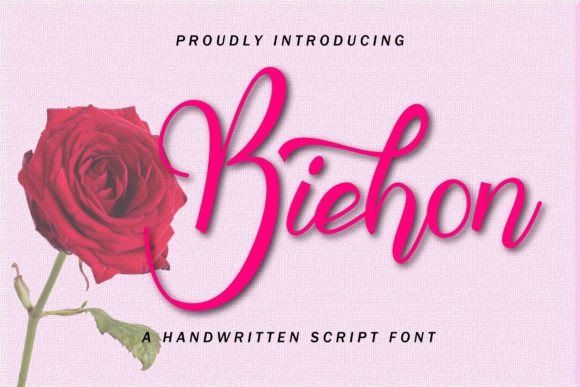
Introducing Biehon Font: The Epitome of Elegance and Sophistication for Your Creative Endeavors
Prepare to be mesmerized by Biehon Font, a magnificent script font that exudes charm, grace, and unparalleled style. This exquisite typeface, meticulously crafted by the talented Emily Studio, invites you to unleash your creativity and create captivating designs that will leave a lasting impression.
Biehon Font is the perfect choice for those seeking to make a statement with their words. Its graceful curves and delicate strokes evoke a sense of effortless elegance, making it an ideal font for invitations, wedding announcements, branding, and any project that demands a touch of luxury.
With its versatility, Biehon Font effortlessly adapts to a wide range of design aesthetics. Whether you're creating a classic and timeless design or a modern and eye-catching one, this font will seamlessly complement your vision. Its adaptability makes it the perfect choice for both personal and professional projects.
But what truly sets Biehon Font apart is its ability to evoke emotions and inspire a deeper connection with your audience. Its enchanting curves create a sense of warmth and intimacy, while its subtle variations add a touch of intrigue and allure. When you use Biehon Font, you're not simply conveying words; you're creating a captivating narrative that resonates with your readers.
So, if you're ready to elevate your designs to new heights of sophistication and captivate your audience with your every word, look no further than Biehon Font. Its timeless beauty and emotional resonance will transform your creative projects into masterpieces that will leave an unforgettable mark.